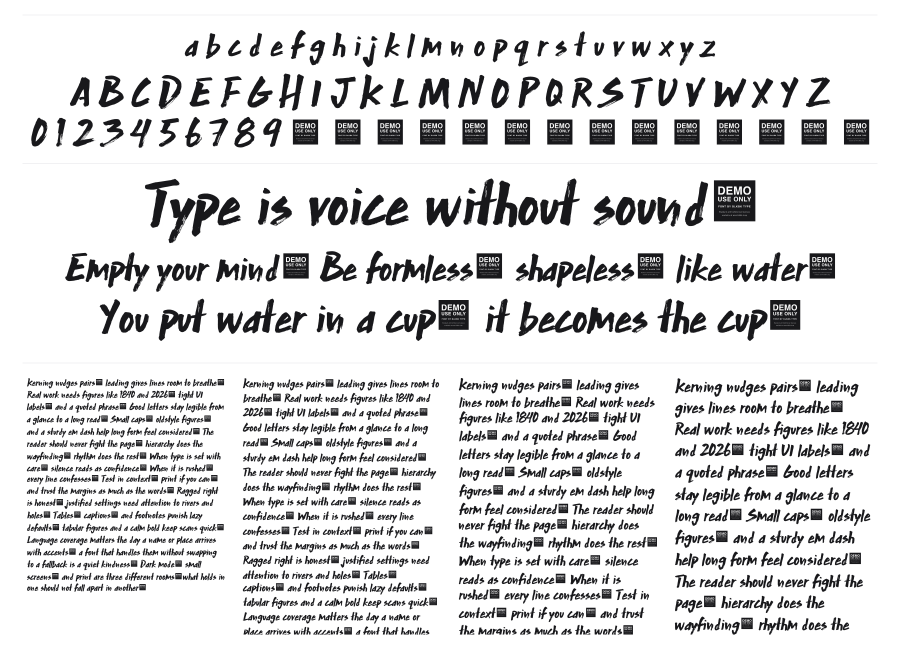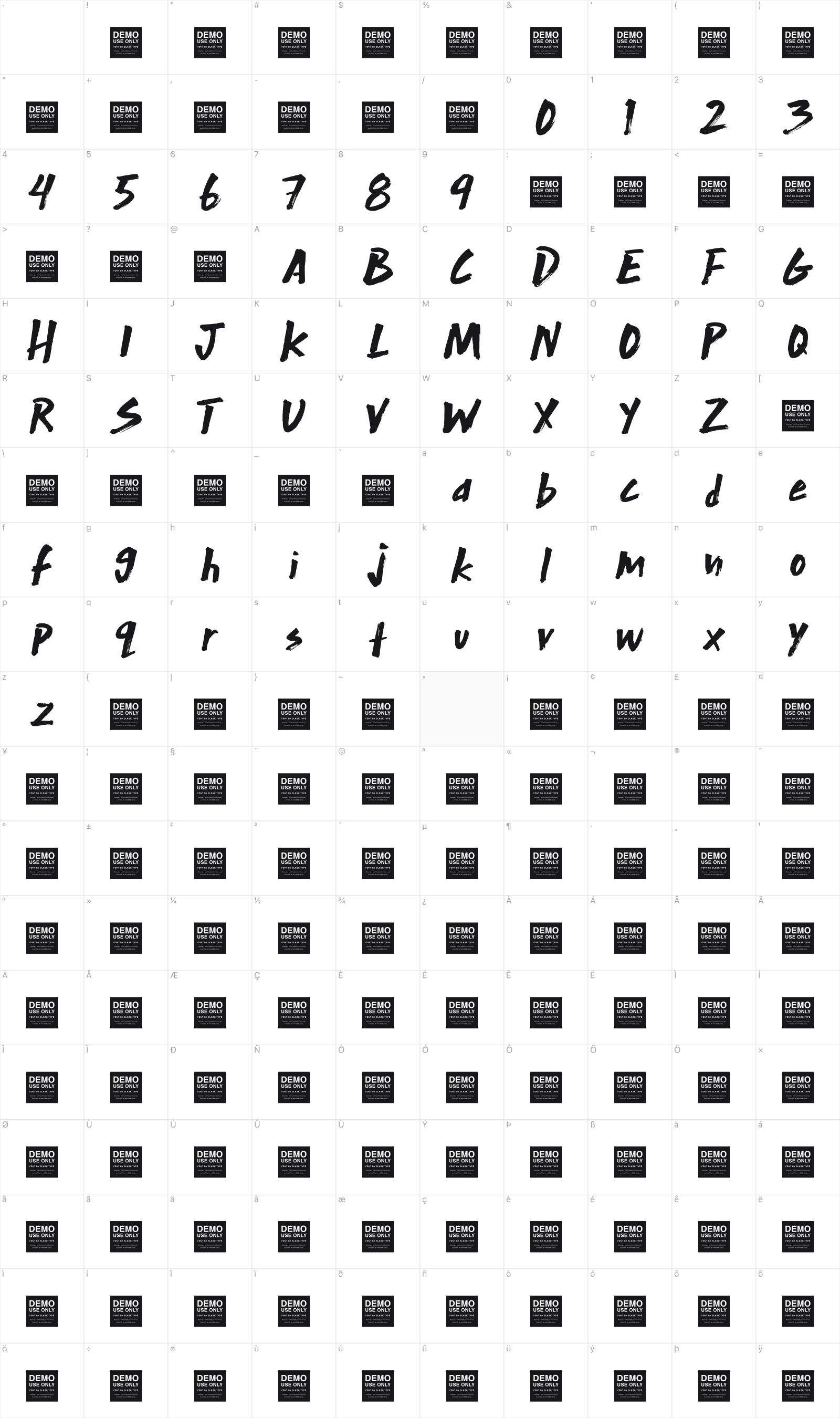
Extra Mile
Extra Mile is a bold brush typeface from BLKBK Fonts with thick, expressive strokes that carry the energy of real paint on paper. The letterforms are rough and textured, with visible bristle marks and uneven edges that keep things feeling spontaneous rather than polished. A strong headline face for posters, packaging, and branding where you want something hand-done with serious visual weight.